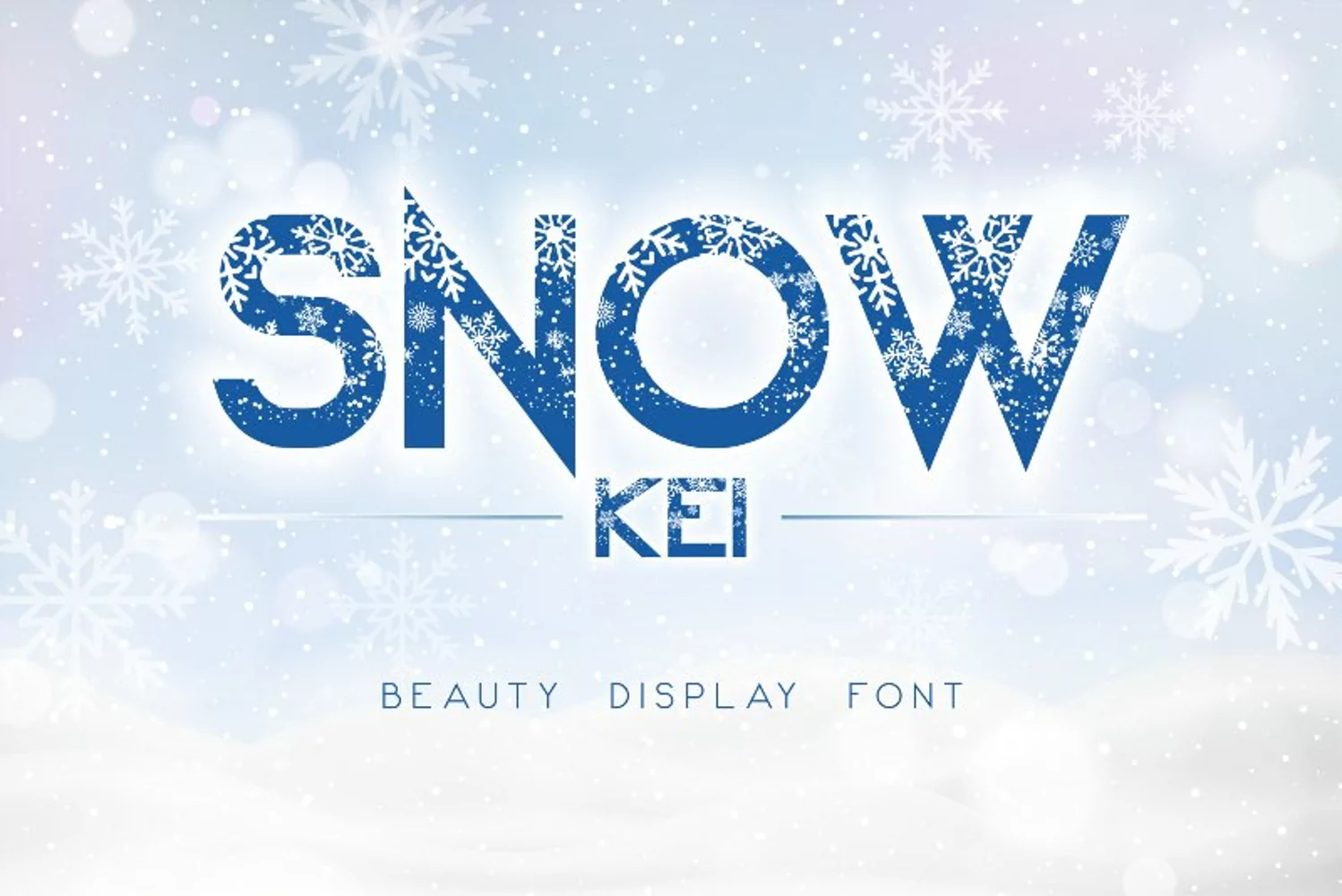
Snow Kei
Snow Kei font is a sweet and cozy display font that features fun wintery details. A new font display with winter nuances in the style of snowflakes, perfect for an extraordinary project this winter. It will easily evoke the feel of days in the snow!